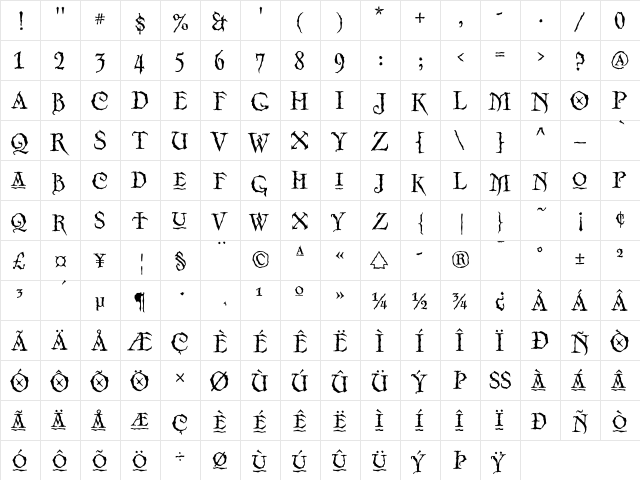
Merlin-DecorativeCaps Regular
Design Context for Merlin-DecorativeCaps Typeface
Merlin-DecorativeCaps is built around its visual character rather than neutral utility — its distinctive forms are designed to make an impression at display sizes.
Font Pairing: Pair with a clean neutral sans-serif for body copy to let Merlin-DecorativeCaps's character lead without overwhelming the composition.
Pro Tip: Use Merlin-DecorativeCaps exclusively at display sizes — it was designed to be seen, not read at length. Let a neutral companion handle body copy.